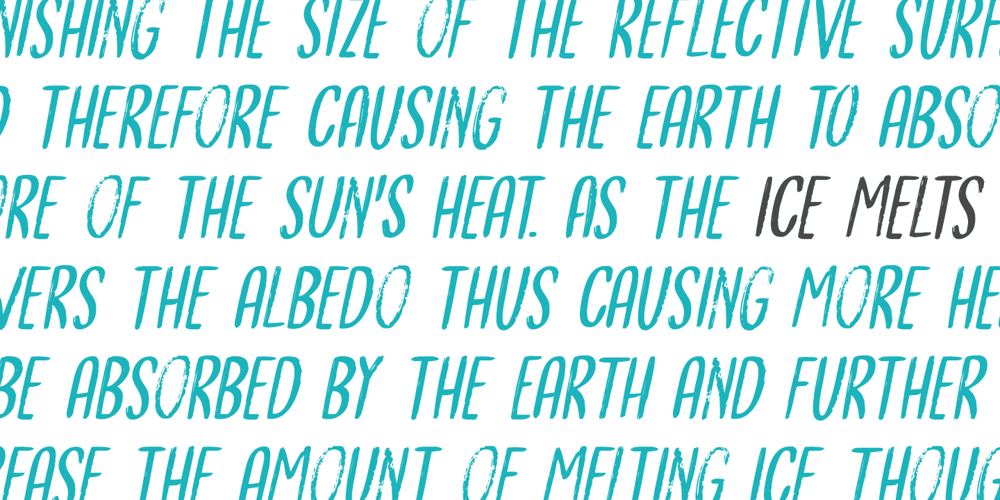
Bergie Seltzer
Bergie Seltzer font
Bergie Seltzer Font Family was designed by David Kerkhoff and published by Hanoded. Bergie Seltzer contains 2 styles and family package options. It could be you’ve never heard of Bergie Seltzer – and neither had I. Basically, Bergie Seltzer is the fizzing sound an iceberg makes when it melts. We are having a bit of a heat wave right now, so I needed to give this font a ‘cool’ name! Bergie Seltzer font is a cool, all caps display font. It has a slightly eroded look (like a melting iceberg if you will) and a laid back attitude. Use it for your summer magazines, your ultra-cool websites and your bottles of fizzy drink! Just don’t melt the polar cap!